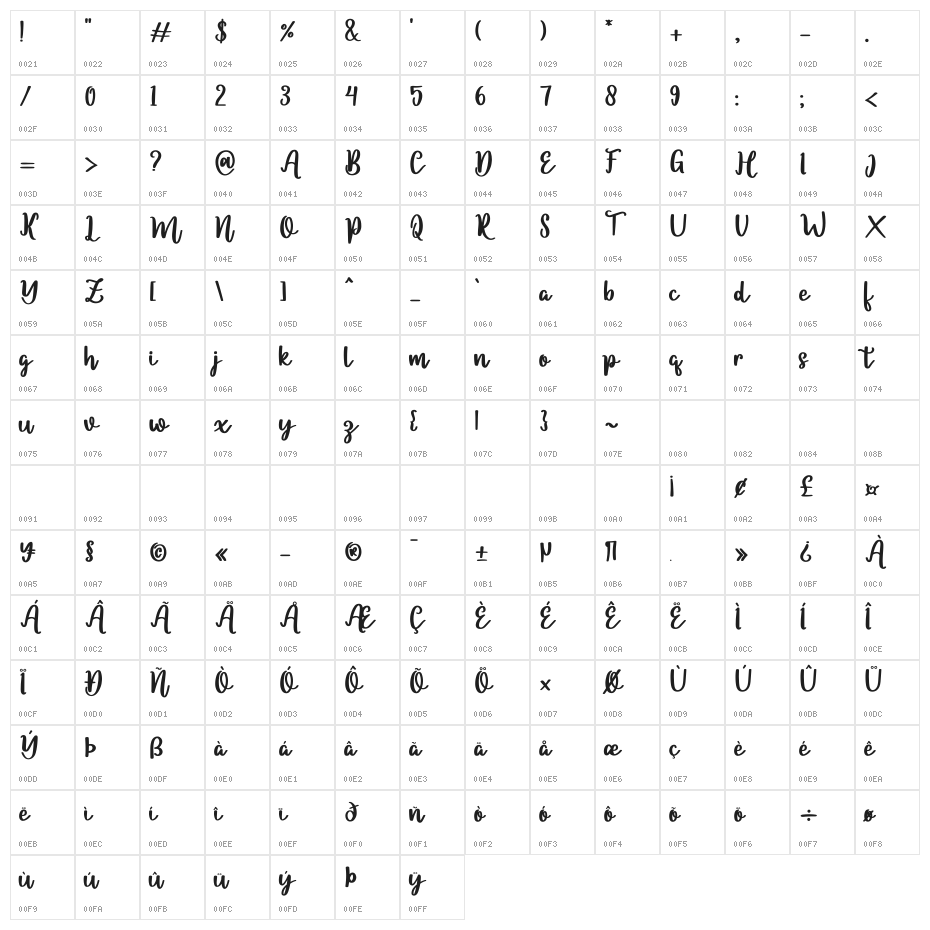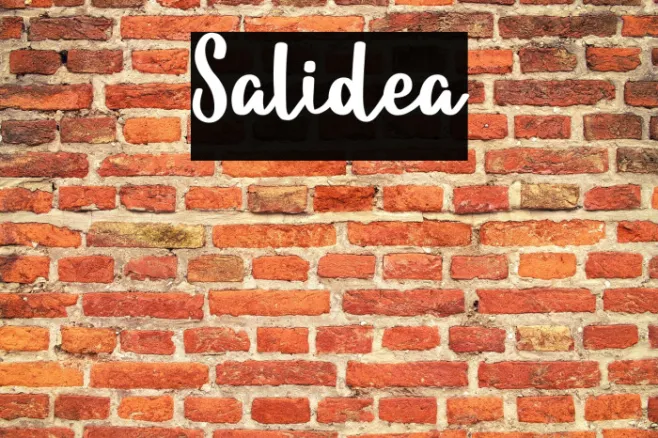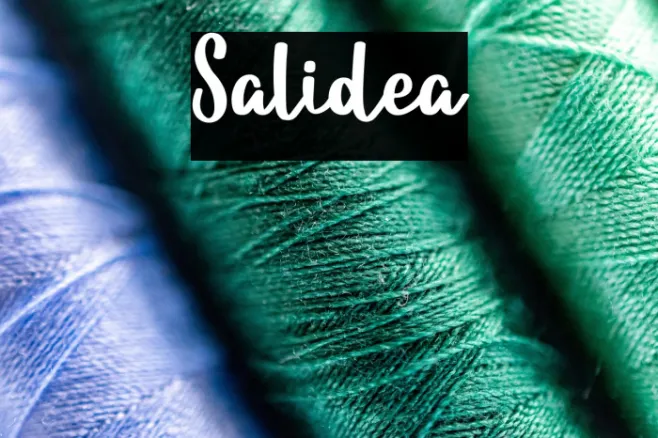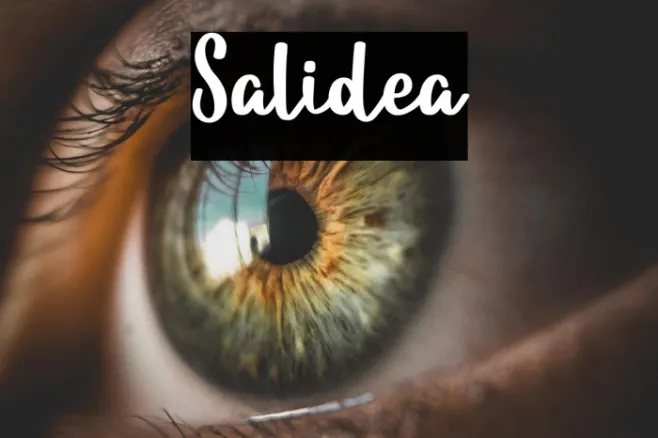
Salidea Font
Salidea Description
This font features a lively and flowing script style, characterized by its bold and expressive strokes. The letters are interconnected, creating a seamless and dynamic appearance that exudes a sense of elegance and playfulness. The uppercase letters are slightly more elaborate, with decorative swirls and loops, while the lowercase letters maintain a consistent rhythm and fluidity. The numerals and special characters are designed to match the overall aesthetic, ensuring a cohesive look across all text elements. This font is ideal for projects that require a personal touch or a creative flair.
| Use Case | Logos, Invitations, Creative projects |
| Proposed Projects | Ideal for wedding invitations, greeting cards, branding, and creative projects requiring a personal touch. |